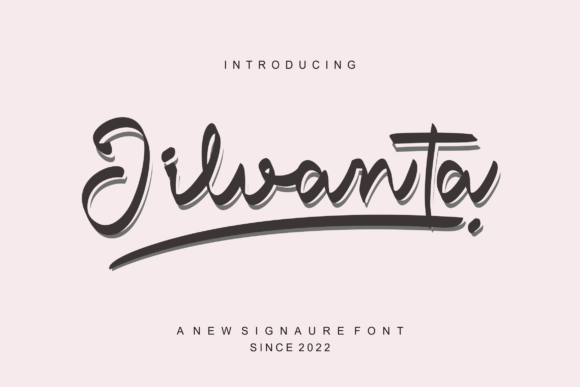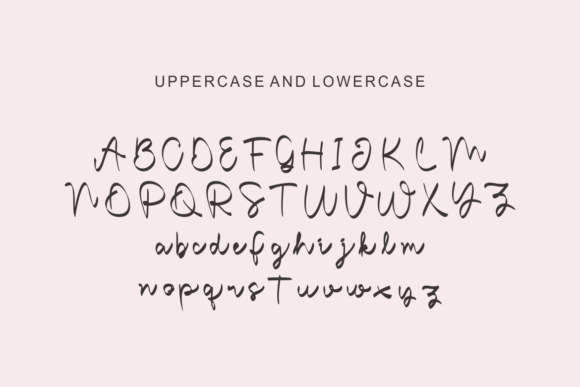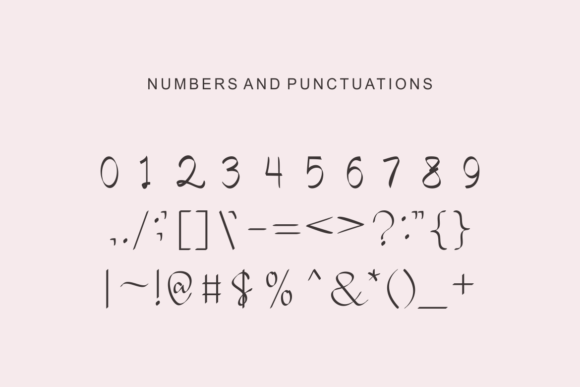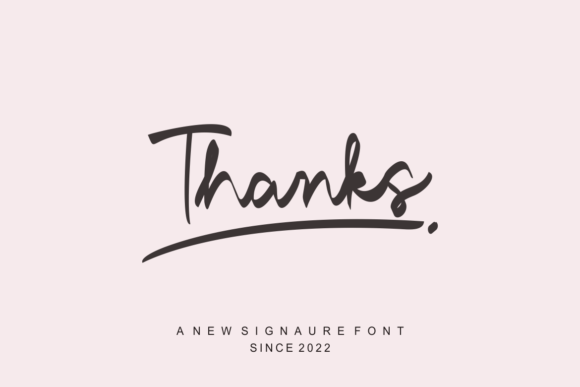
The Art of Handwritten Perfection: Introducing Jilvanta Font
Remember that moment when a spark of creativity strikes, and you envision a design that’s truly one-of-a-kind? That’s exactly what I’m talking about. It’s the moment when inspiration meets passion, and the result is something that leaves you breathless. For designers, this feeling is what drives them to create, and it’s exactly what the Jilvanta Font can help bring to life.
Developed to add a touch of elegance and sophistication to any design, the Jilvanta Font is a beautiful handwritten script that’s sure to impress. Its natural and refined style makes it the perfect choice for adding a personal touch to your most creative ideas. Whether you’re working on a branding project, a wedding invitation, or a piece of fine art, the Jilvanta Font is an invaluable asset that will help you transform your vision into a stunning reality.
- Unique Characteristics: This font features a unique blend of traditional and modern elements, with intricate details and a rich texture that adds depth and visual interest to any design
Jilvanta Font Review
As a designer, I’ve had the chance to experiment with the Jilvanta font, and I must say it’s an interesting addition to my collection. ✨ Here are some things that I think work well:
- Unique aesthetic: The Jilvanta font has a distinctive, hand-drawn look that can add a touch of personality to any design.
- Customizability: The font comes in a range of weights and styles, making it easy to find the perfect fit for your project.
- Legibility: Despite its unique appearance, the Jilvanta font is surprisingly easy to read, even at smaller font sizes.
However, I do have some concerns about the limitations of this font. ⚠️ Here are a few things to keep in mind:
- Limited language support: The Jilvanta font may not support all languages or character sets, which could be a problem for global or multilingual projects.
- Not ideal for body text: While the Jilvanta font works well for headings and titles, it may not be the best choice for large blocks of body text.
Overall, I think the Jilvanta font is a great addition to any designer’s toolkit, but it’s not without its limitations. With careful planning and selection, it can add a unique touch to your designs. However, it’s essential to be aware of its potential drawbacks before using it in a project.
Tips for Getting the Most Out of Jilvanta Font
Use Jilvanta Font to add a touch of elegance and sophistication to your designs. Experiment with different font sizes, styles, and colors to create a unique look.
Jilvanta Font is ideal for:
- Wedding websites and social media graphics
Alternatives to Jilvanta Font for Designers
The Jilvanta Font is a sans-serif typeface known for its clean and modern design. However, designers may seek alternatives for specific projects or to achieve unique styles. Here are three alternatives to the Jilvanta Font.
Open Sans is a popular sans-serif font that is highly legible and versatile. It works well for body text, headings, and even logos. This font is ideal for digital projects, such as websites and mobile apps, where readability is crucial. Compared to Jilvanta Font, Open Sans has a slightly rounded appearance and a more open feel, making it suitable for a wide range of applications.
Lato is a sans-serif font that is both elegant and modern. It has a unique design that is perfect for branding and advertising projects. Lato’s clean lines and geometric shapes make it an excellent choice for corporate identities and luxury brands. In comparison to Jilvanta Font, Lato has a more refined and sophisticated appearance, making it suitable for high-end projects.
Montserat is a sans-serif font that is inspired by the urban landscape of Buenos Aires. It has a strong and geometric design that is perfect for bold and modern projects. Montserrat is ideal for headlines, titles, and logos where a strong visual impact is required. Compared to Jilvanta Font, Montserrat has a more dramatic and edgy appearance, making it suitable for projects that require a bold statement.